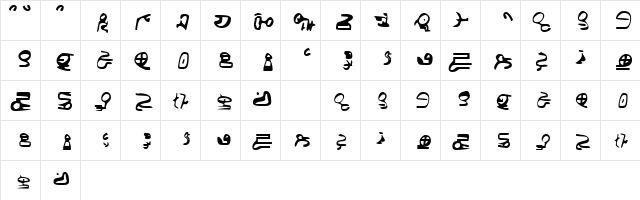
ID4 Alien Script Normal
Design Context for ID4 Alien Script Typeface
ID4 Alien Script flows with the natural rhythm of handwritten lettering, making it ideal for designs that call for warmth and personal expression.
Font Pairing: Combine ID4 Alien Script with a simple geometric sans for maximum contrast — the tension between flowing curves and clean structure is a classic typographic pairing.
Pro Tip: Pair ID4 Alien Script with a clean sans-serif for supporting text. The contrast between fluid script and geometric structure creates an elegant typographic hierarchy.